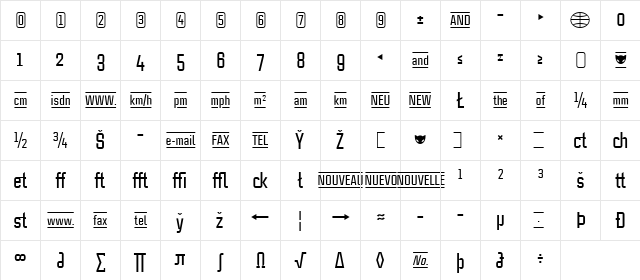
Complete CaseStudyNoOne LT Medium glyph index. Displaying only characters natively supported by CaseStudyNoOne LT Medium font.
CaseStudyNoOne LT is a composed and adaptable typeface that performs quietly and consistently across a wide range of design contexts. Its slender proportions lend an understated elegance to any composition.